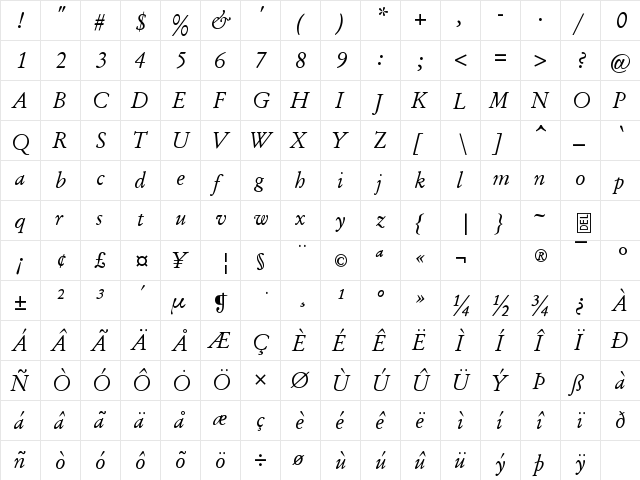
Alexander Regular
| Designer | George Douros |
Design Context for Alexander Typeface
Alexander offers clean, dependable letterforms without strong stylistic allegiance, making it a practical choice for designers who need flexibility.